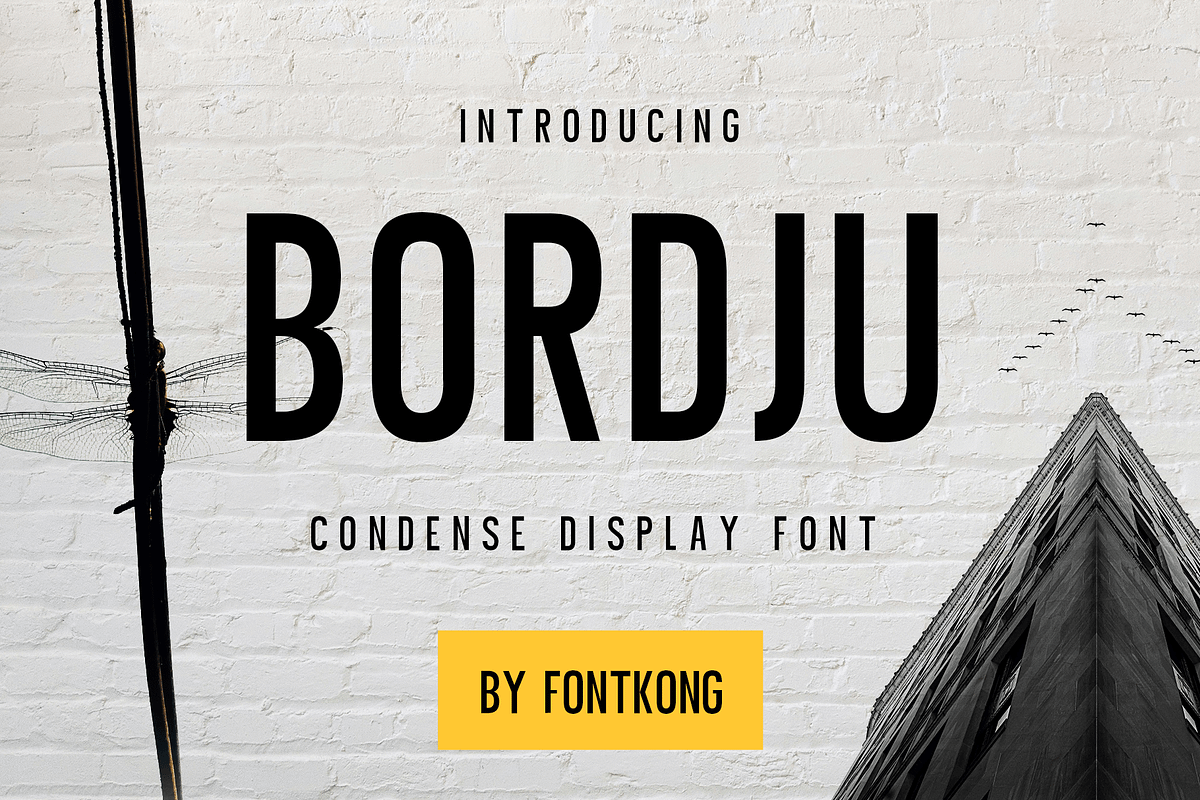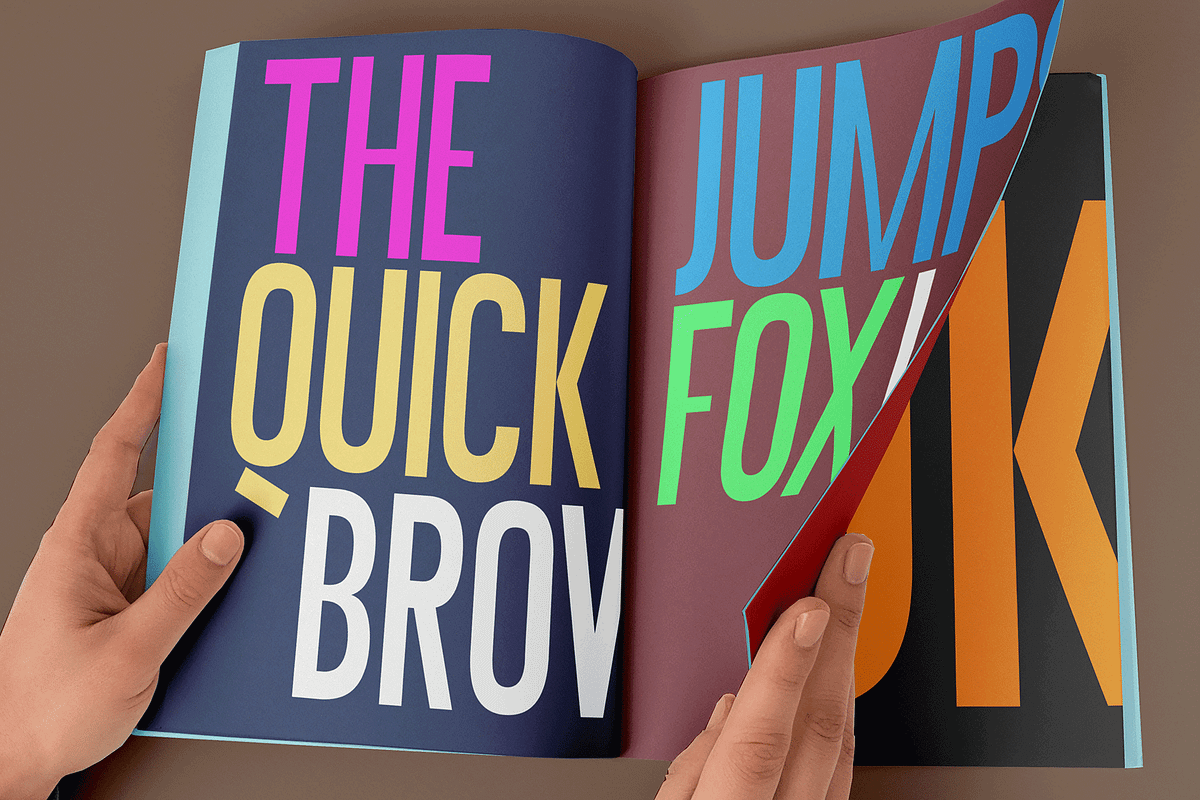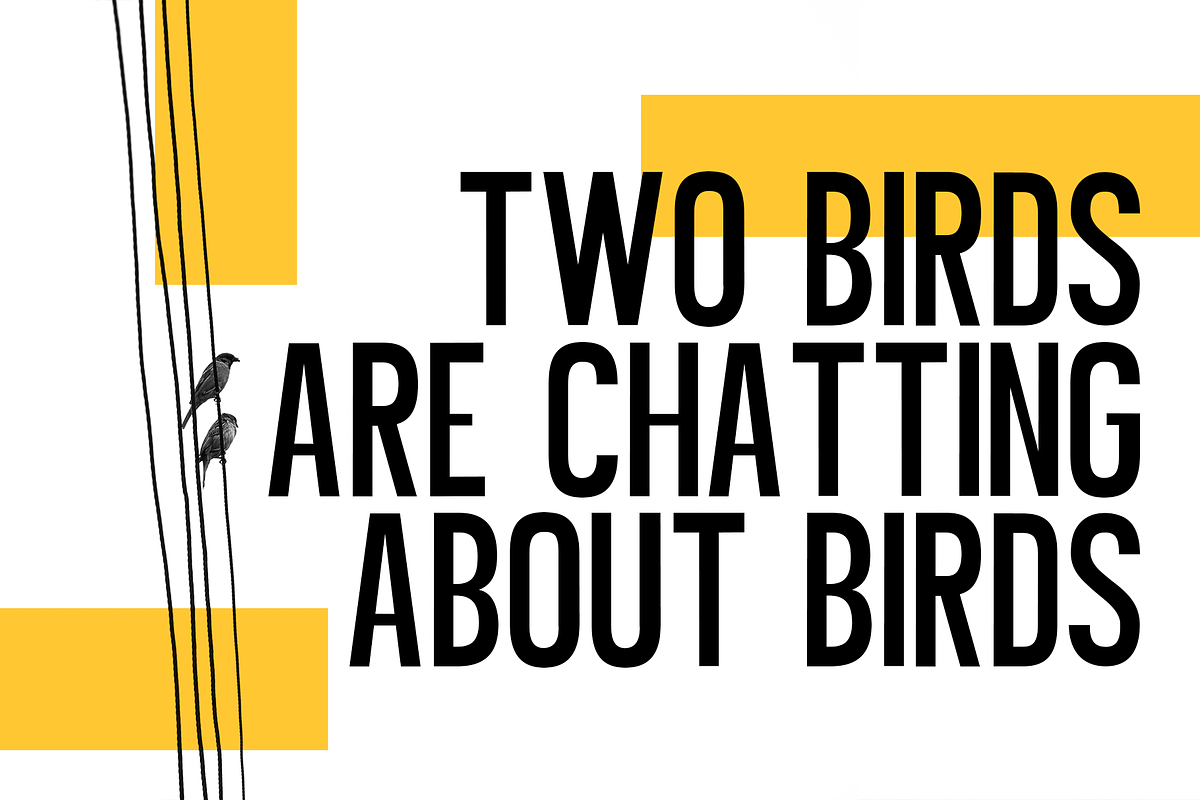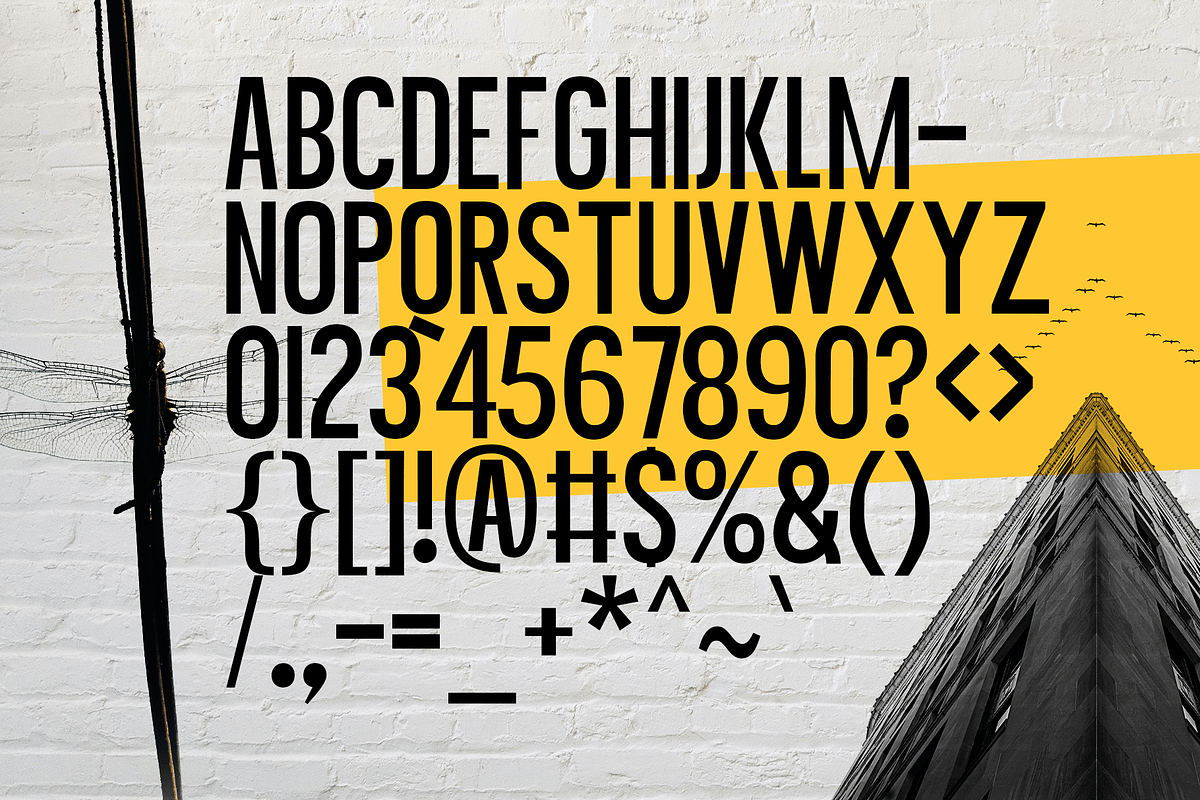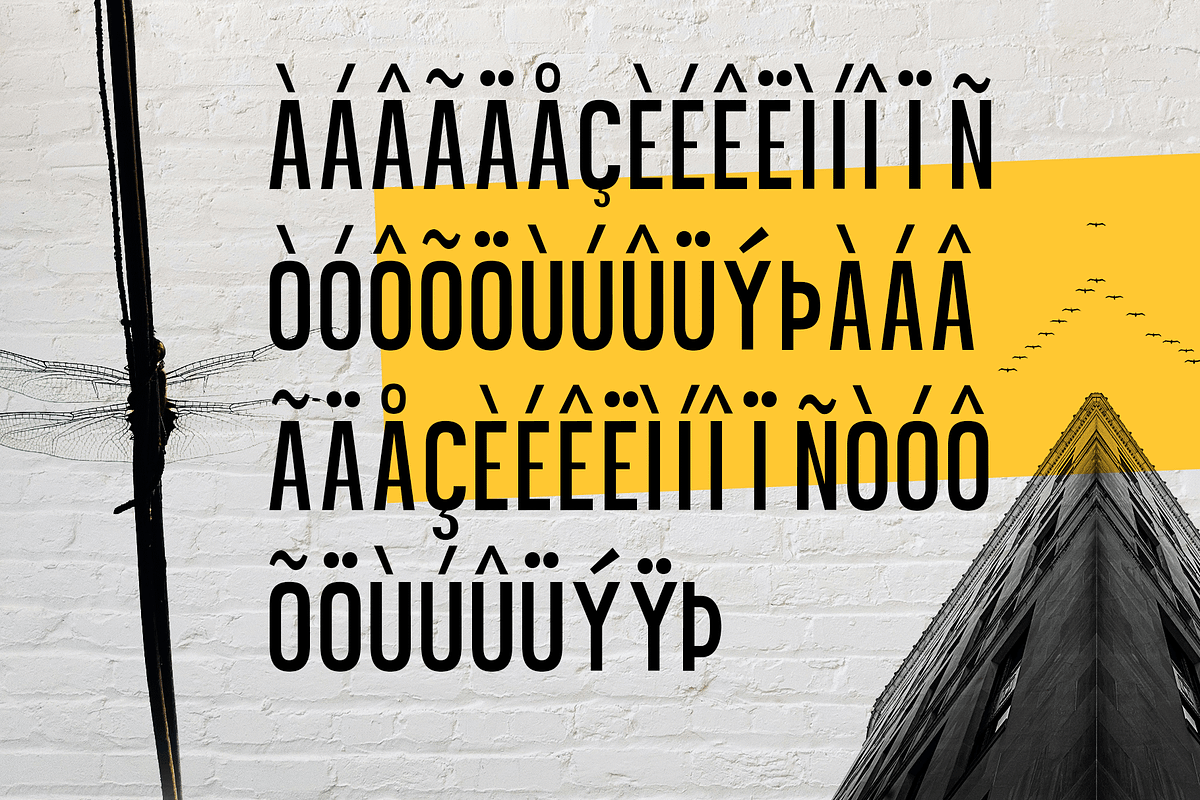
Bordju – Condensed Display Font
Introducing Bordju, a condensed display font designed to deliver bold statements with a sleek, space-saving form. Its tall, narrow letterforms are perfect for modern designs that require strong visual hierarchy without sacrificing space—ideal for headlines, posters, magazine layouts, branding, and digital media.
Bordju stands out with its sharp edges, geometric structure, and contemporary personality. Whether you're crafting editorial titles, fashion branding, or dynamic web graphics, this font gives your typography a clean, professional edge.
Includes uppercase letters, numbers, punctuation, and multilingual support, making Bordju a versatile choice for global creatives who value form and function.